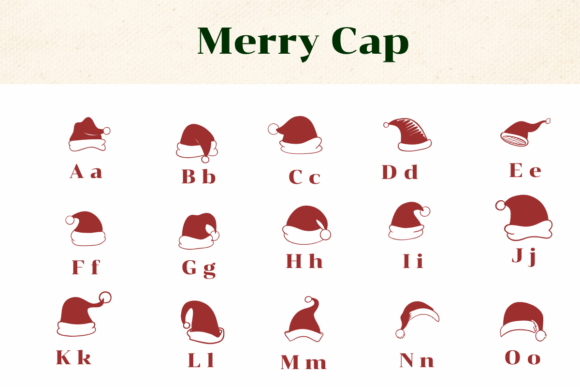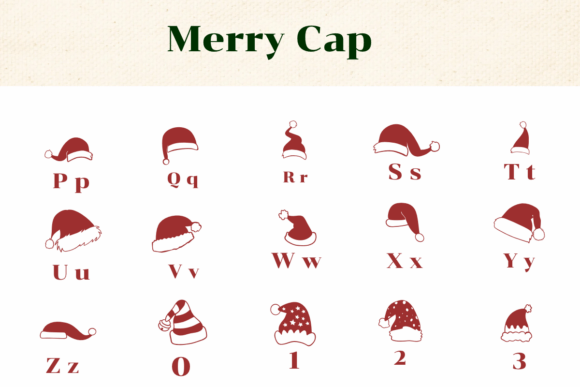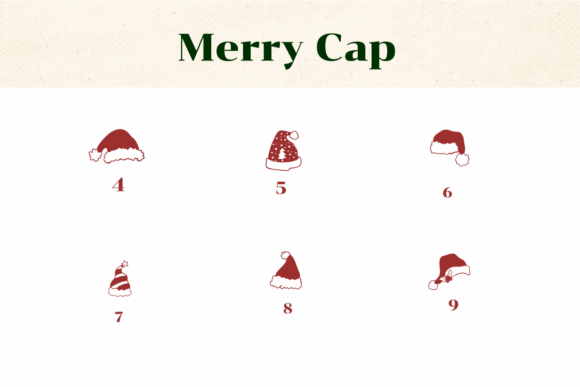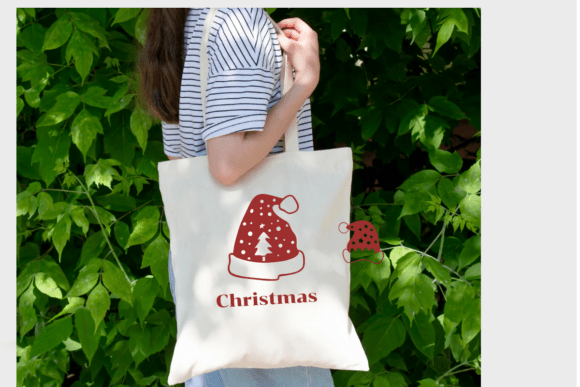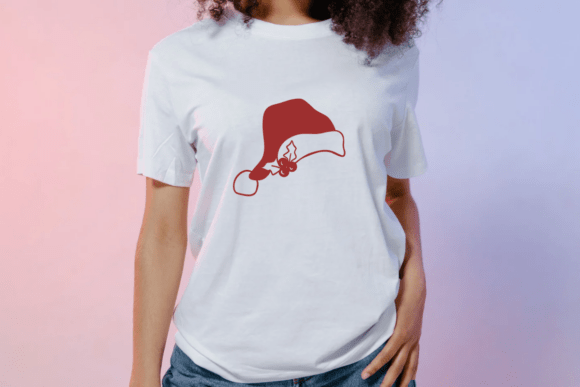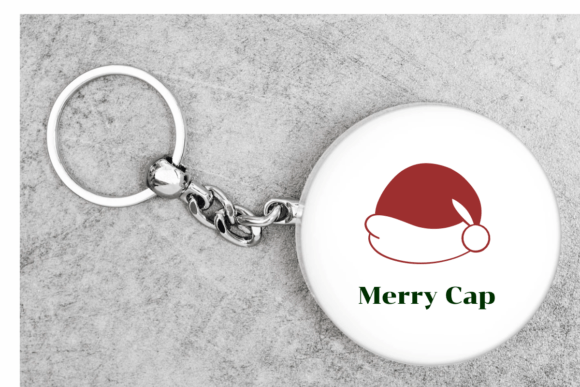
Introduction to Merry Cap Font
Have you ever been working on a creative project and stumbled upon the perfect design element that brings everything together? For designers, finding the right font can be a game-changer. I recall a project where a cute, festive font transformed a plain design into a joyful holiday card. That moment sparked my curiosity about the Merry Cap Font, and I’m excited to share its charm with you.
As a valuable design resource, Merry Cap Font offers a unique blend of whimsy and elegance. Its transparent background allows for seamless integration into various designs, while its high-quality graphics make it perfect for both digital and print projects. Whether you’re working on a holiday-themed project or a fun design for a child’s birthday, Merry Cap Font is sure to add a touch of magic to your creations.
Key Features of Merry Cap Font
- High-quality design resource with a playful and festive touch, perfect for creative projects and holiday-themed designs.
- Comes with a transparent background, allowing for easy integration into various design settings and backgrounds.
- Features a bold and eye-catching design, making it ideal for use in headings, titles, and other prominent design elements.
Honest Review: Merry Cap Font
I recently had the opportunity to work with the Merry Cap Font, and I must say, it’s been a delight to incorporate it into my creative project. The font is designed to add a touch of festivity to any design, making it perfect for holiday-themed projects.
What works well: ✨ The font’s unique design and the transparent background option make it easy to layer with other design elements. I also appreciate the high-quality design resource, which makes it a great addition to any design library.
Limitations: ⚠️ The font’s design can be a bit overwhelming if used in large quantities. Additionally, the font doesn’t come with as many variations as I would have liked, which can limit its versatility.
Overall, I’m impressed with the Merry Cap Font. It’s a great design resource for anyone looking to add a bit of festive flair to their project. With a little creativity, the font’s limitations can be easily worked around, and the end result is well worth it.
- Unique design with transparent background option
- Great for holiday-themed projects
Merry Cap Font
The Merry Cap Font is a high-quality design resource perfect for adding a touch of whimsy to your creative project. This versatile font features a transparent background, making it easy to integrate into various design platforms.
Tips for Getting the Most Out of Merry Cap Font
To get the most out of the Merry Cap Font, try combining it with other design elements, such as illustrations and graphics, to create a unique and eye-catching visual identity.
The Merry Cap Font is perfect for a variety of creative projects, including:
- Children’s book illustrations
- Party invitations and decorations
- Wedding stationery and decorations